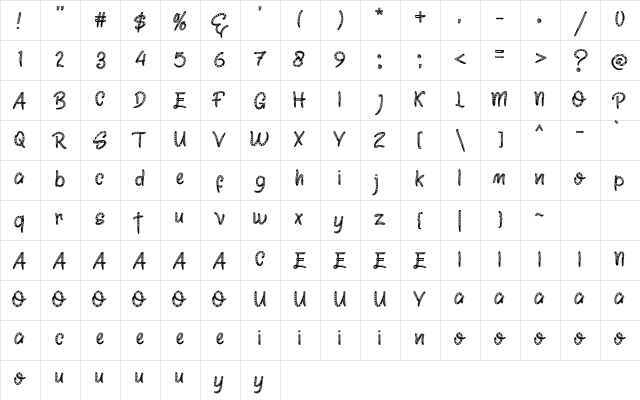
Holla Rolla Regular
Design Context for Holla Rolla Typeface
Holla Rolla takes a measured approach to typography — its balanced proportions and neutral character make it a reliable workhorse for both digital and print work.